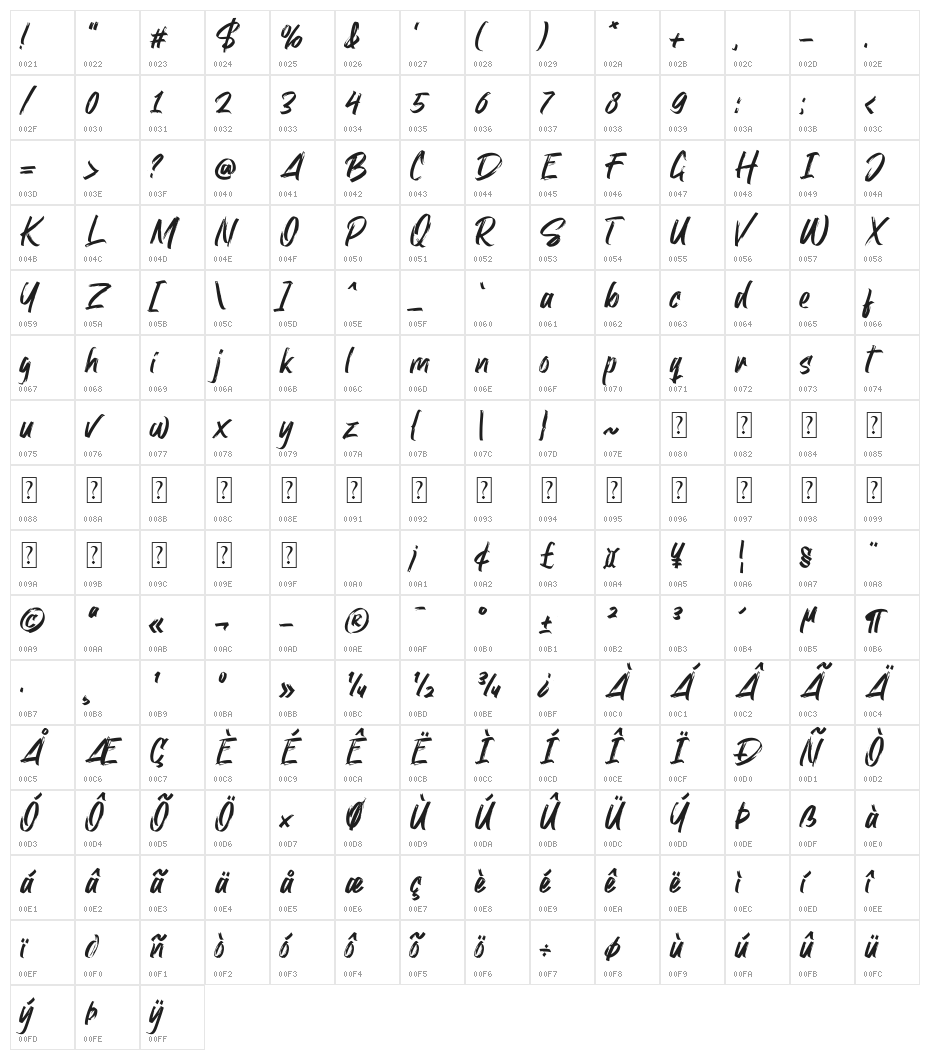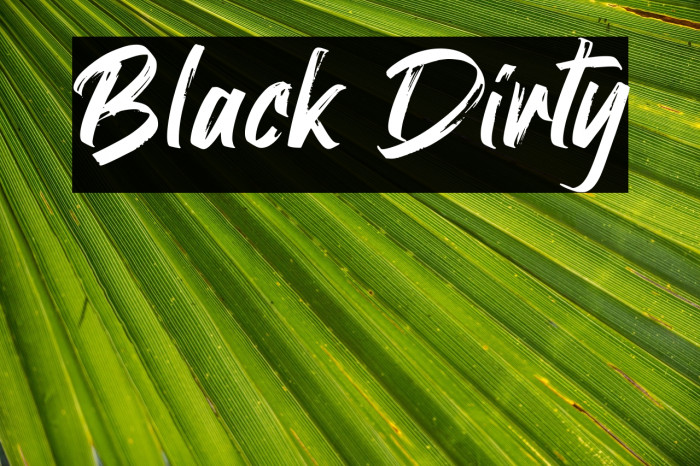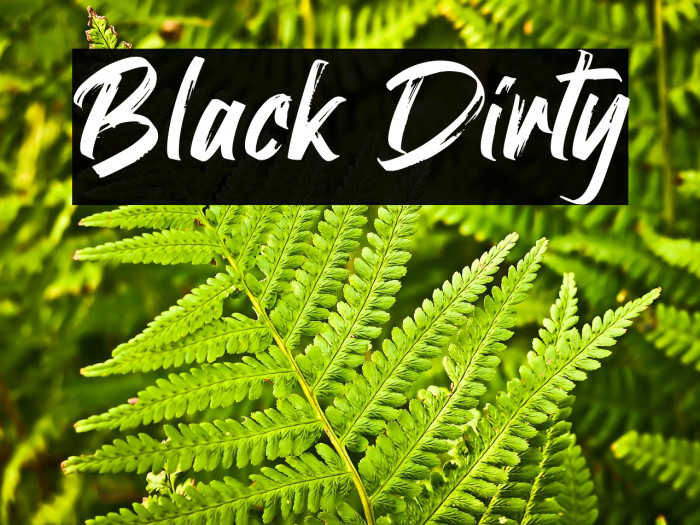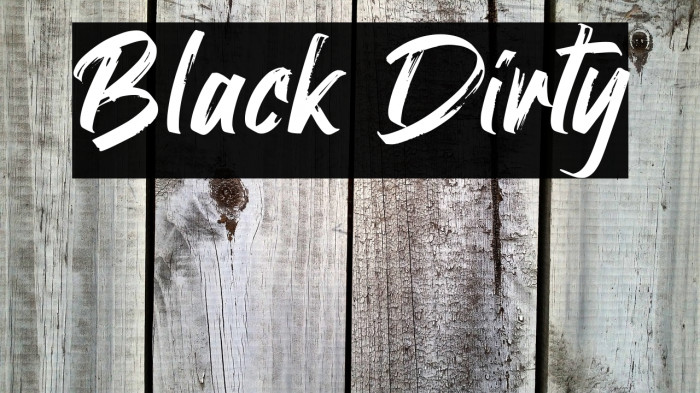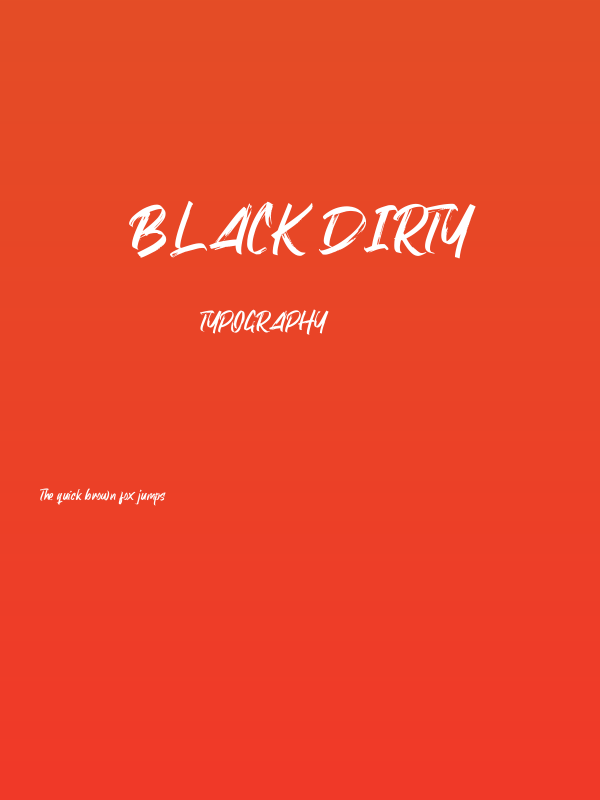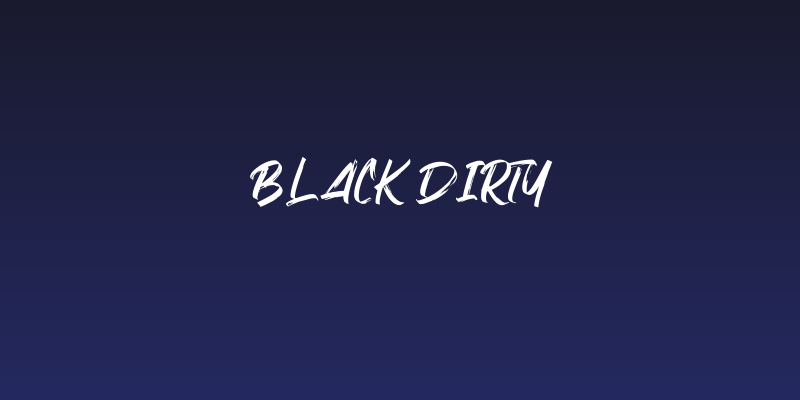
Black Dirty Font
Black Dirty Description
This font features a bold, expressive style with a brush-like texture that gives it a dynamic and energetic appearance. The strokes are irregular, with varying thickness that adds a sense of movement and spontaneity. The uppercase and lowercase letters maintain a consistent style, with sharp angles and fluid curves. Numbers and special characters follow the same aesthetic, ensuring a cohesive look across all text elements. This font's raw and edgy design makes it stand out, ideal for projects that require a strong visual impact.
| Overall Style | Modern, Artistic |
| Proposed Projects | Perfect for posters, album covers, branding, and any project needing a bold, artistic touch. |